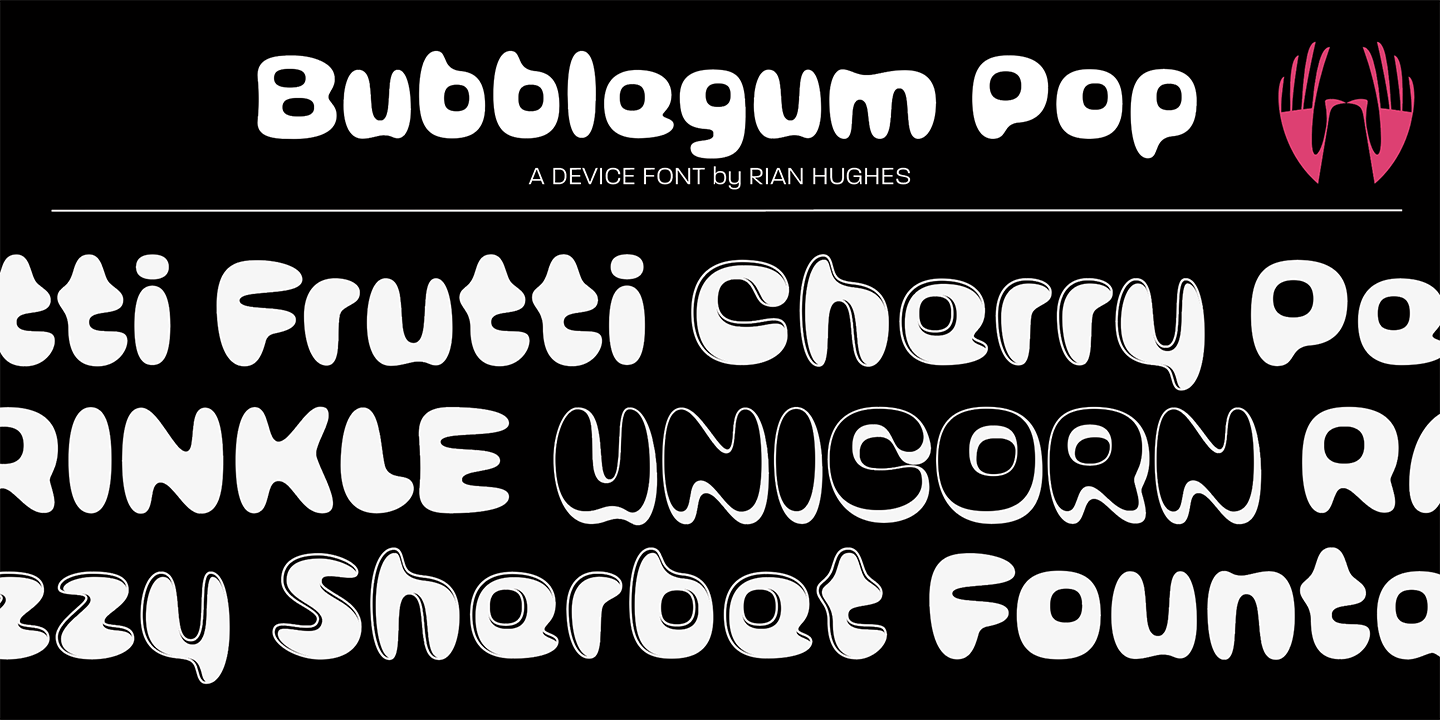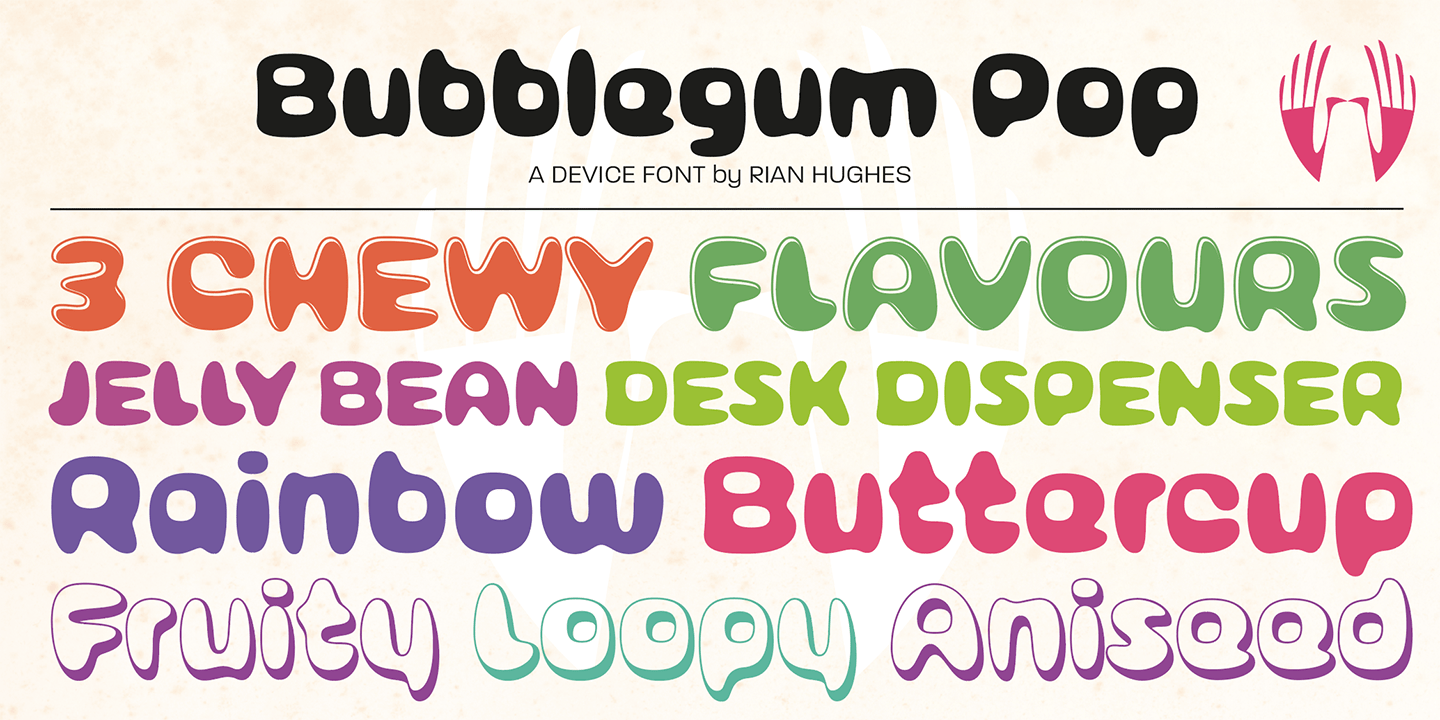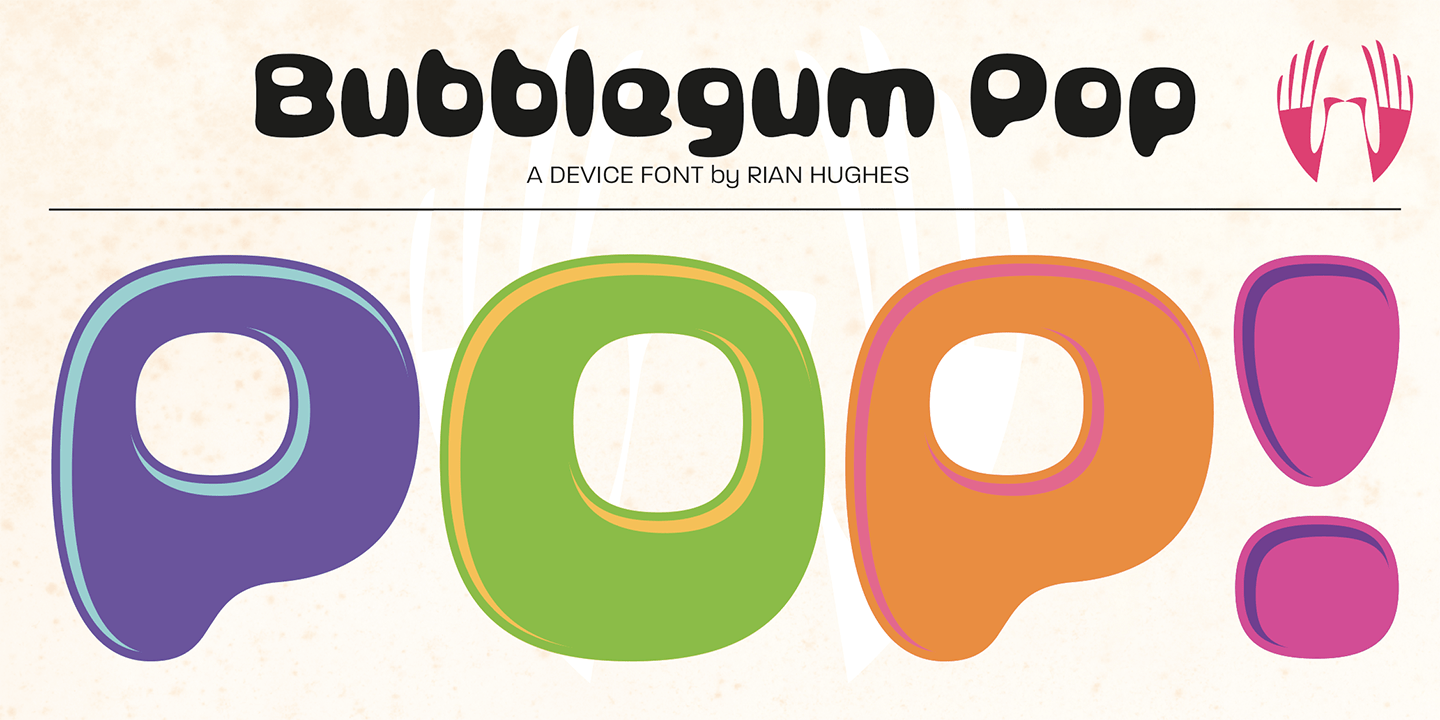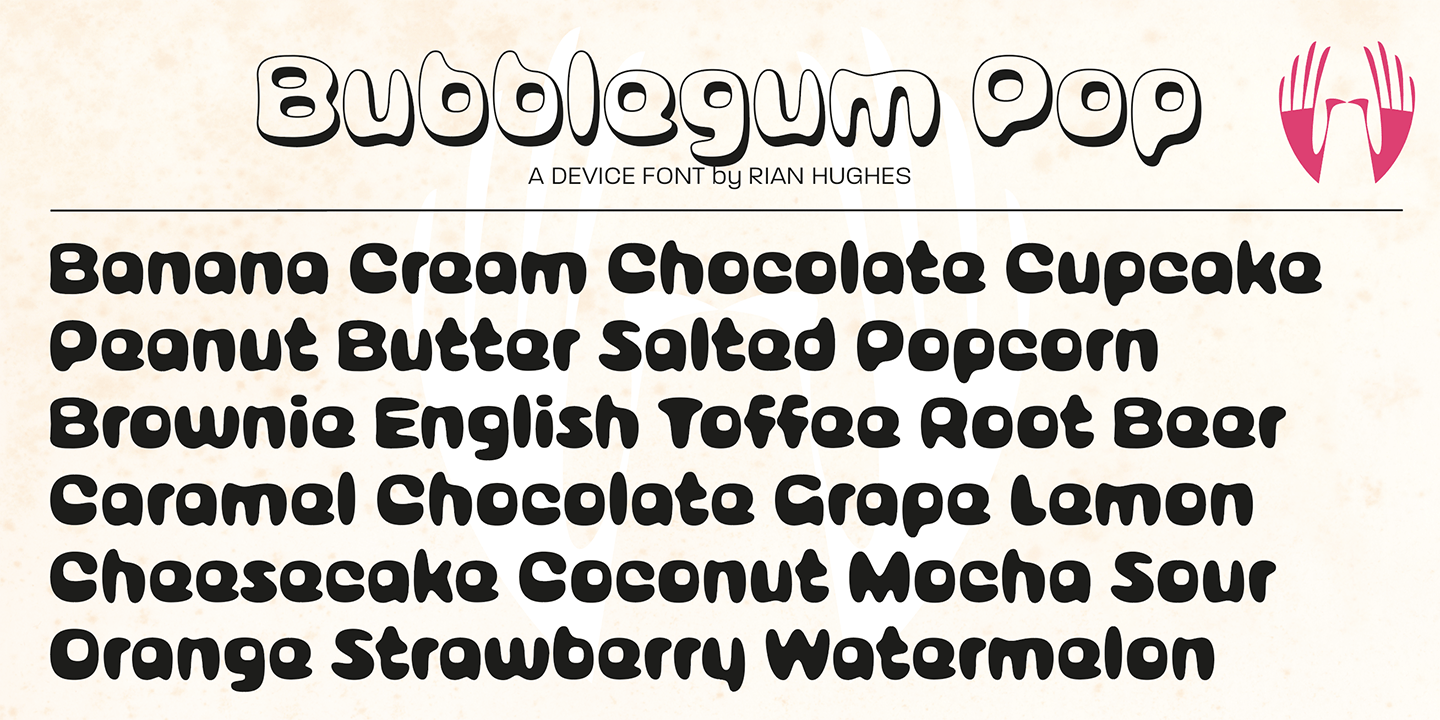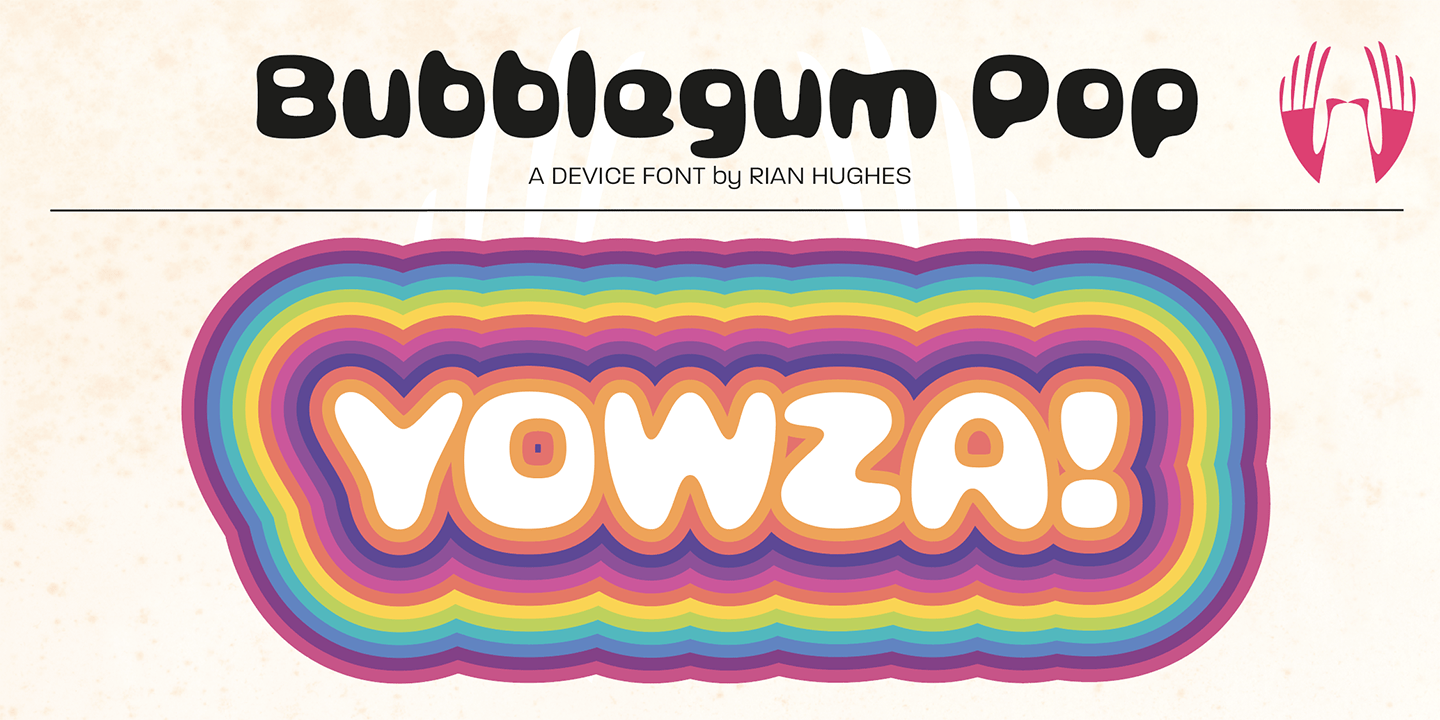
Bubblegum Pop
Font Family by Device
Buy NowA funky balloon type in three variants, Highlight, Shadow and plain old Vanilla. Guaranteed to bring a sense of playful fun to packaging, comic magazines, and merchandise.